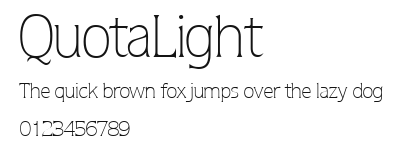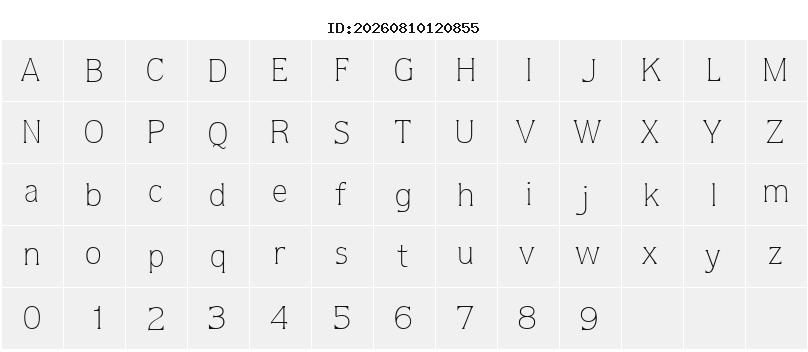
• Font Name: QuotaLight
About QuotaLight.ttf
QuotaLight.ttf is a modern, elegant sans-serif font designed for ultimate readability and visual harmony. Perfect for branding, headlines, web design, and print materials.